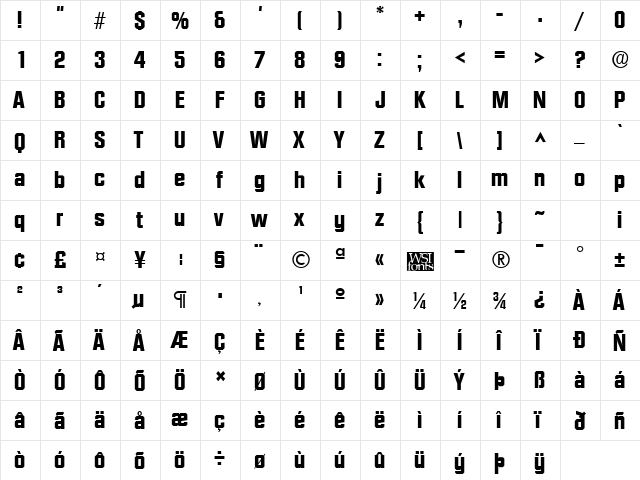
FacetHeavy Regular
Design Context for FacetHeavy Typeface
FacetHeavy takes a measured approach to typography — its balanced proportions and neutral character make it a reliable workhorse for both digital and print work.